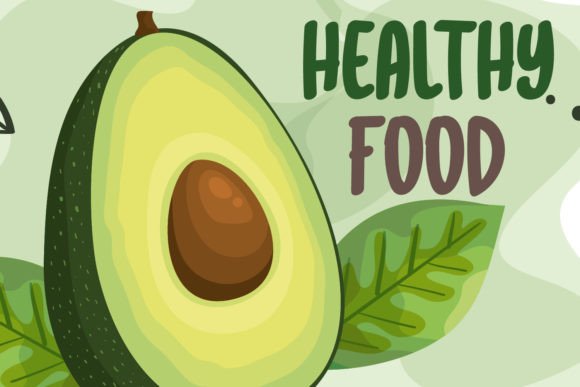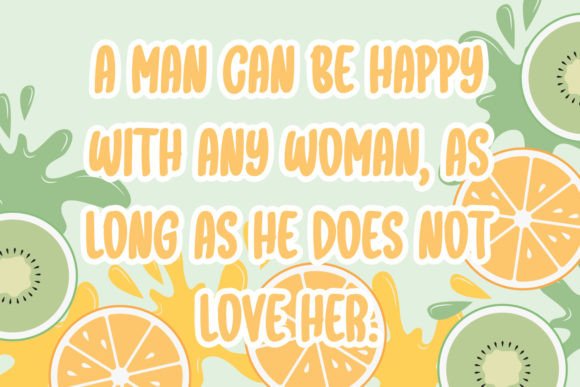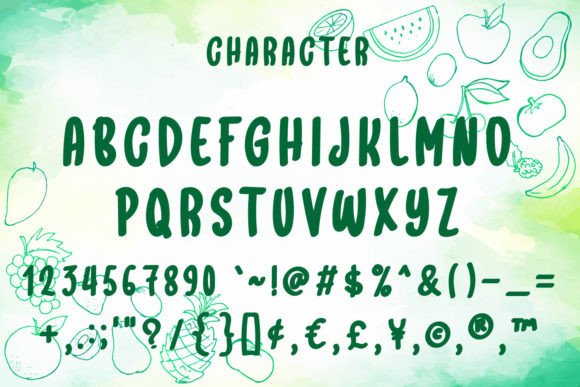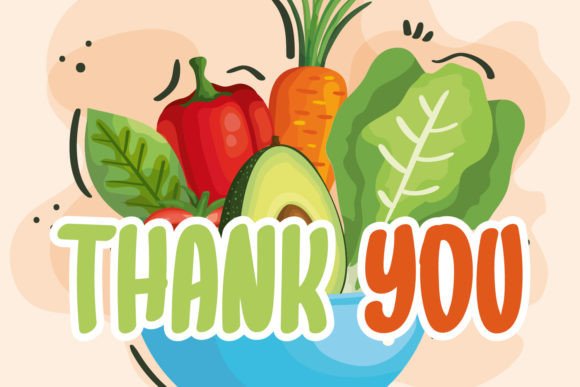
Introducing Avocado Lime Font: The Perfect Addition to Your Design Arsenal
Are you a designer or crafter looking for a font that can add a touch of fun and playfulness to your designs? Look no further than Avocado Lime Font! This brilliant, handmade display font is perfect for children-themed designs, and its versatility makes it suitable for a wide range of projects.
What Makes Avocado Lime Font So Special?
Avocado Lime Font is a one-of-a-kind font that is sure to make your designs stand out. Its unique, hand-drawn style gives it a charming and whimsical feel that is perfect for designs that require a playful touch. The font’s bold and rounded letters are sure to grab attention, making it ideal for use in:
- Quotes and posters
- T-shirts and apparel
- Business cards and stationery
The Power of Avocado Lime Font in Children-Themed Designs
When it comes to designing for children, it’s essential to create a visual identity that is both fun and engaging. Avocado Lime Font is specifically designed with this in mind. Its bright and cheerful style is sure to appeal to kids and parents alike, making it perfect for:
- Children’s book titles and illustrations
- Kids’ party invitations and decorations
- Educational materials and worksheets
- Toy packaging and branding
Why Choose Avocado Lime Font?
With so many fonts available, why choose Avocado Lime Font? Here are just a few reasons why this font stands out:
- Unique style: Avocado Lime Font has a distinctive, handmade style that sets it apart from other fonts.
- Versatility: This font can be used in a wide range of projects, from logos and branding to t-shirts and greeting cards.
- High-quality design: Each letter has been carefully crafted to ensure that the font is both legible and visually appealing.
Tips for Using Avocado Lime Font
To get the most out of Avocado Lime Font, here are a few tips to keep in mind:
- Pair with bright colors: Avocado Lime Font is designed to be paired with bright, bold colors. Experiment with different color combinations to find the perfect match for your design.
- Use in combination with other fonts: Avocado Lime Font can be used in combination with other fonts to create a unique and visually appealing design.
- Experiment with different sizes: Avocado Lime Font can be used at a variety of sizes, from large display fonts to smaller body text.